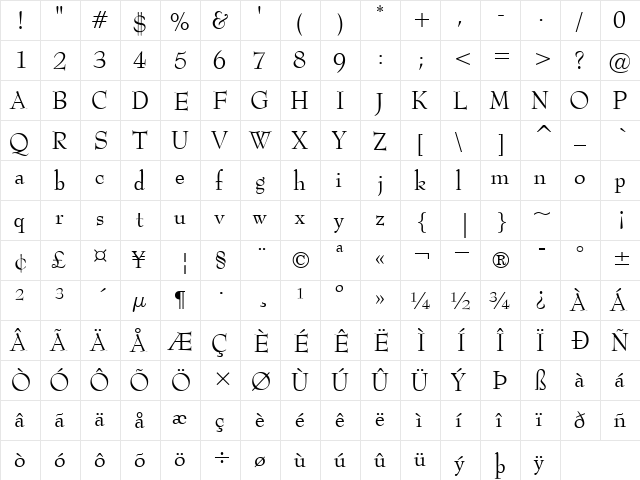
MonitorSSK Regular
Design Context for MonitorSSK Typeface
MonitorSSK is a composed and adaptable typeface that performs quietly and consistently across a wide range of design contexts.